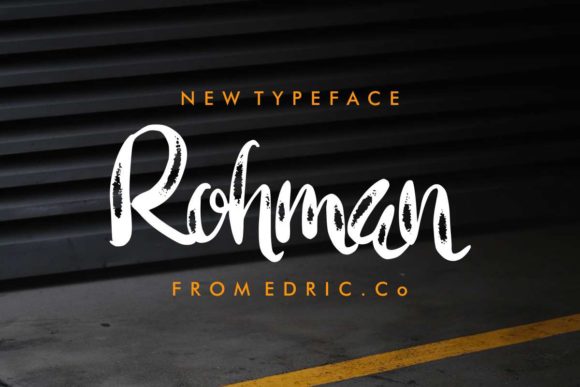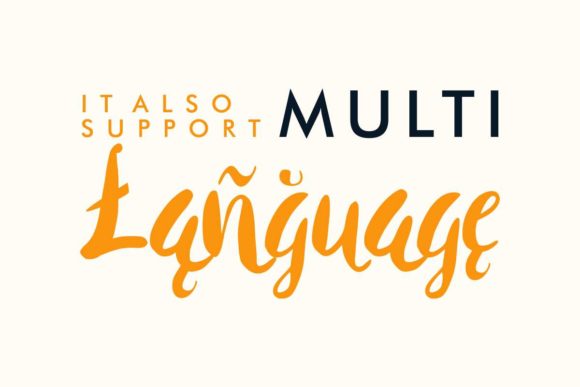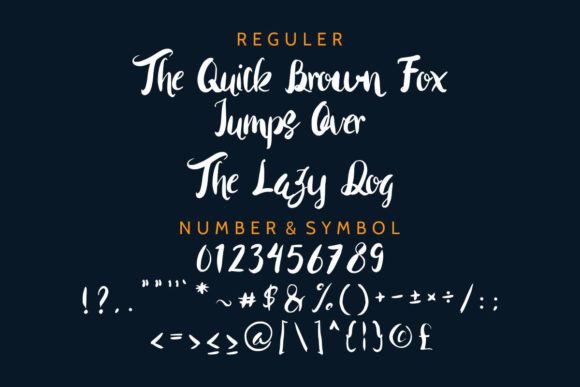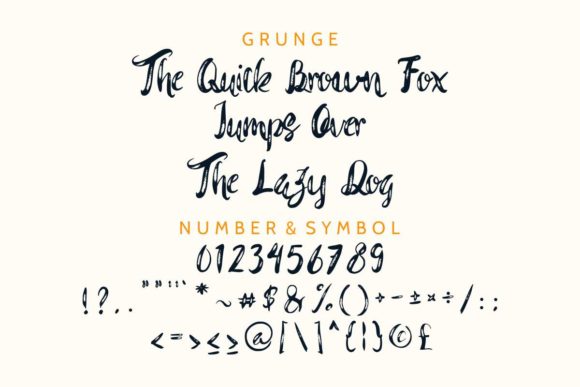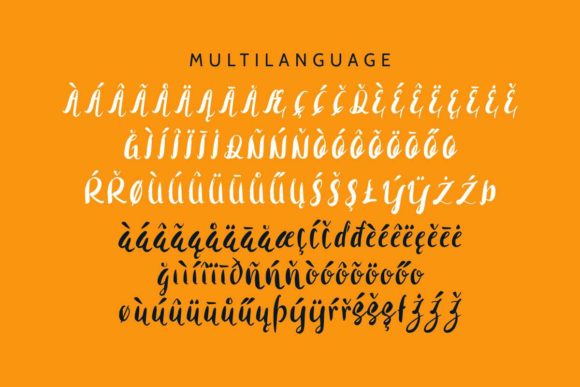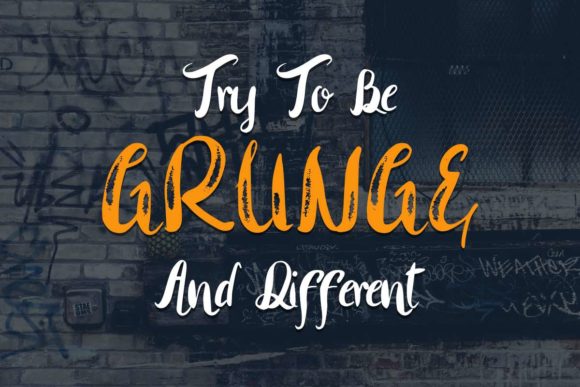
Introduction to Rohman Font
Have you ever been working on a design project and suddenly you stumble upon that perfect font that elevates your entire creative vision? That’s exactly what happened to me when I discovered the Rohman Font. Its bold and charming handwritten style instantly caught my attention, and I knew I had to learn more about it.
The Rohman Font is a game-changer for designers who are looking to add a unique touch to their projects. With its high-quality design and transparent background, it’s the perfect resource to take your creative project to the next level. Plus, it’s available for free download, making it an accessible design resource for designers of all levels.
Whether you’re working on a branding project, a social media campaign, or a simple blog post, the Rohman Font is sure to turn your design into a true standout. In this article, we’ll dive deeper into the world of Rohman Font and explore its unique aesthetic, so you can get inspired and take your design projects to new heights.
Key Features of Rohman Font
- Unique, modern design perfect for artistic and creative projects
- Designed for use in digital and print media, including logos, graphics, and typography
Honest Review: Rohman Font
I recently stumbled upon the Rohman Font, and I must say it’s a game-changer for any creative project. This high-quality font is perfect for designers who want to add a unique touch to their work.
- ✨ Unique design: The Rohman Font has a distinctive look that sets it apart from other fonts. Its clean lines and elegant curves make it perfect for headings and titles.
- ⚠️ Limited font styles: While the Rohman Font has a unique design, it’s limited to a single font style. This might not be ideal for designers who want to mix and match different font styles for their project.
- ⚠️ Not suitable for large text: The font is best used for headings and titles, as it can get a bit difficult to read when used for large blocks of text.
Overall, I’d say the Rohman Font is a great addition to any design resource library. Its unique design and free download make it a must-try for any designer. While it has some limitations, it’s definitely worth considering for your next creative project.
Getting the Most Out of Rohman Font
To get the most out of the Rohman Font, experiment with different font sizes, colors, and styles. You can also combine it with other design elements to create a unique and eye-catching design. The Rohman Font is a high-quality design resource that can help elevate your creative project.
The Rohman Font is commonly used in graphic design, branding, and digital marketing. Its clean and modern design makes it suitable for creating logos, graphics, and typography for various creative projects.